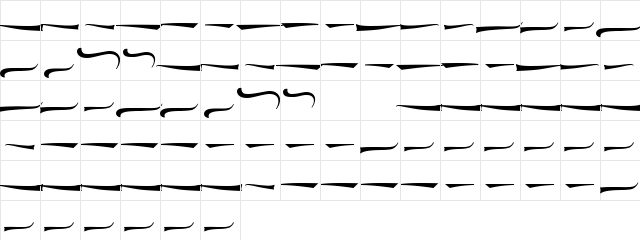
Black Ryder Demo Extra Swash Regular
Design Context for Black Ryder Demo Extra Swash Typeface
Black Ryder Demo Extra Swash flows with the natural rhythm of handwritten lettering, making it ideal for designs that call for warmth and personal expression.
Font Pairing: Combine Black Ryder Demo Extra Swash with a simple geometric sans for maximum contrast — the tension between flowing curves and clean structure is a classic typographic pairing.
Pro Tip: Use Black Ryder Demo Extra Swash for short runs of text — names, titles, or taglines. Extended body copy in script faces tires the eye quickly.